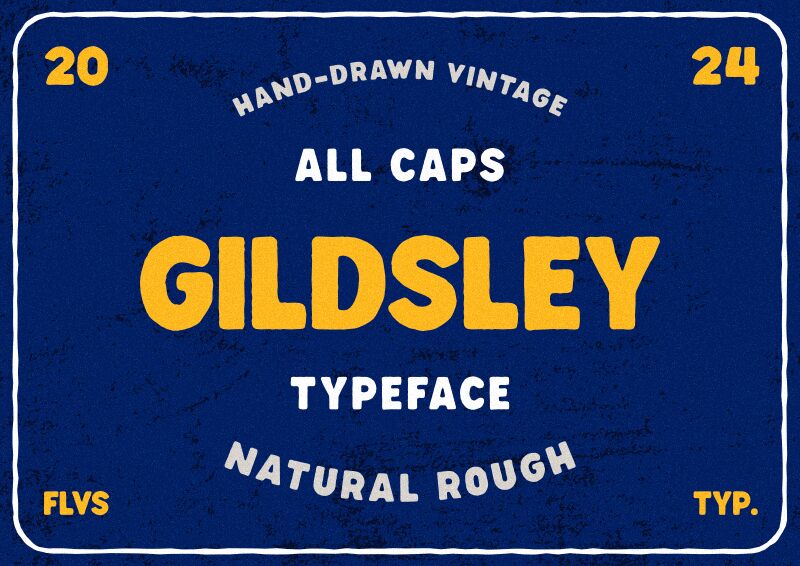
Gildsley font family by Floves Type has two font styles perfect for cynosure engrossing type design. The free font family gives emphasis to both its uniquely styled characters with a particular focus angle on the text body presentation. The retro-inspired and hand-drawn appearance make Gildsley characteristically outstanding. Each letter and character has a visually intense element of irregularities that combine beautifully, giving it a forcefully distorted overall appearance.
The usage of angle, interruptions, and intensity in its visual look allow it to attract attention naturally. The smooth sporadic presentation of the font easily blends into a wide range of design options which may include functioning as an overlay in a banner ad/vlog, logo, and label designs. Other possible uses include personal postcards and greeting cards, social media designs, websites, and other mobile applications.